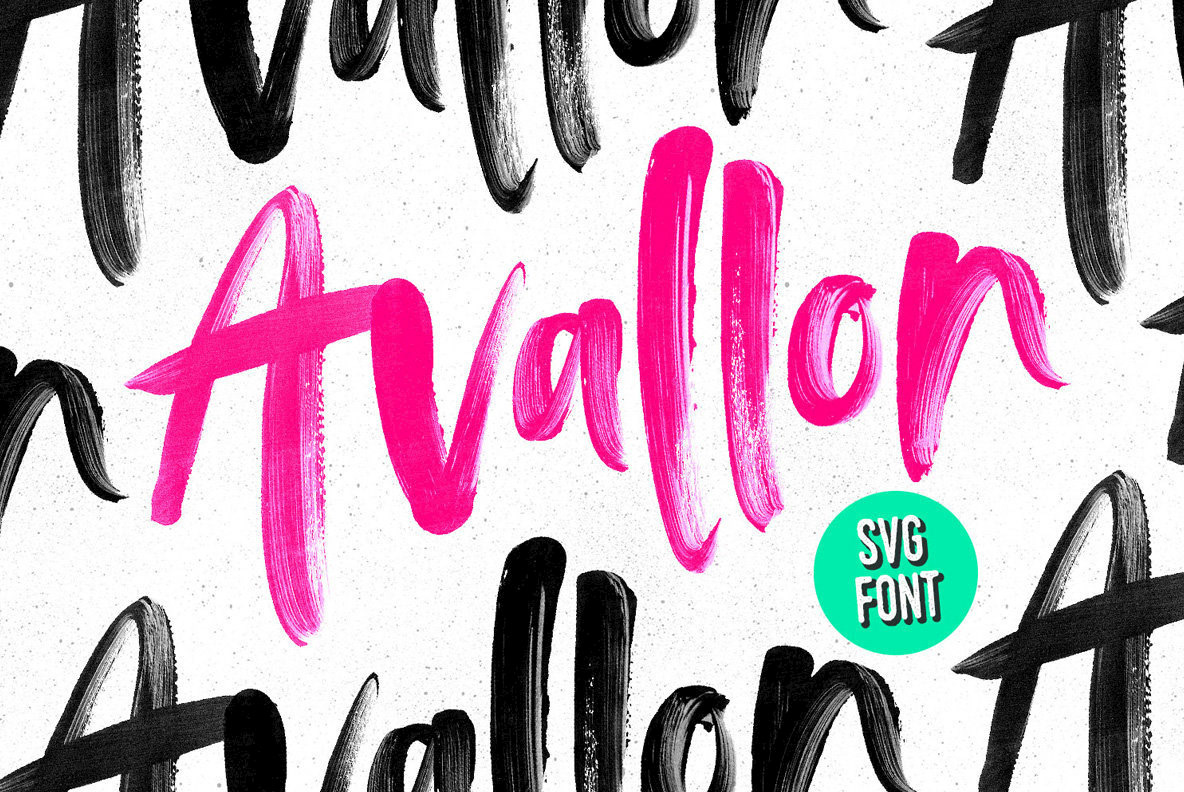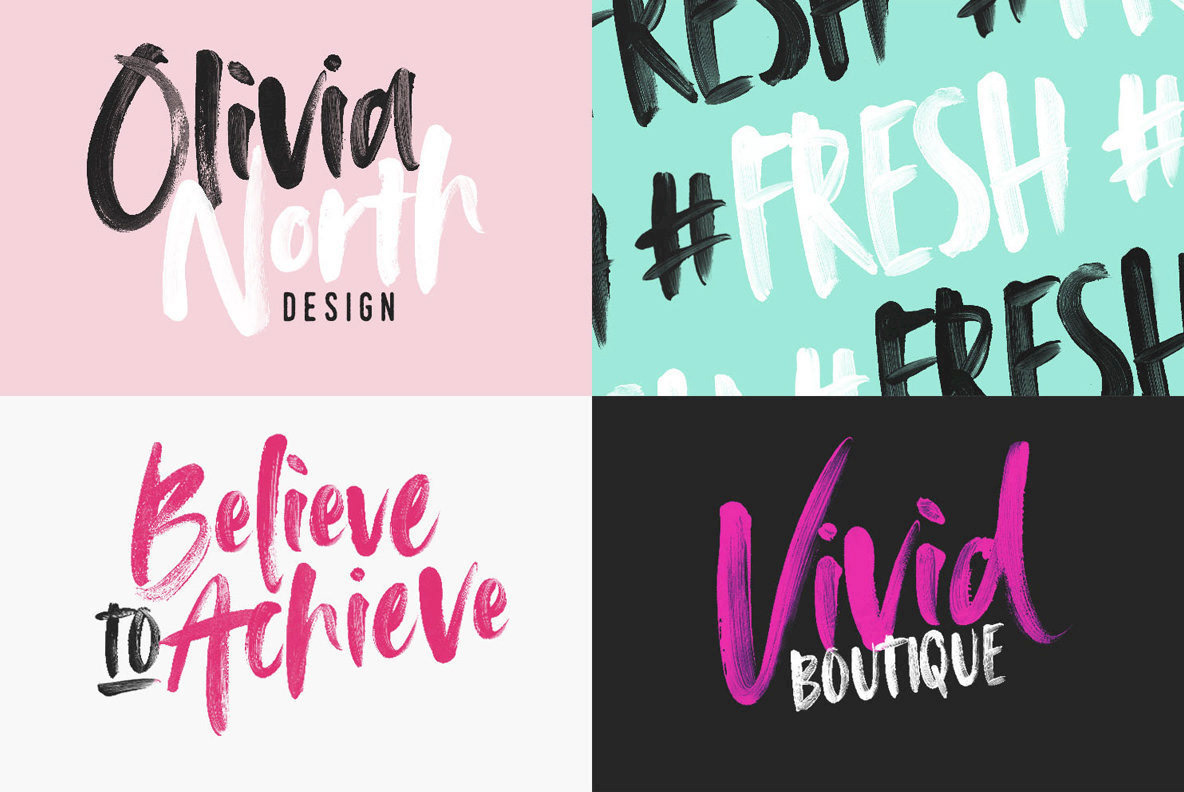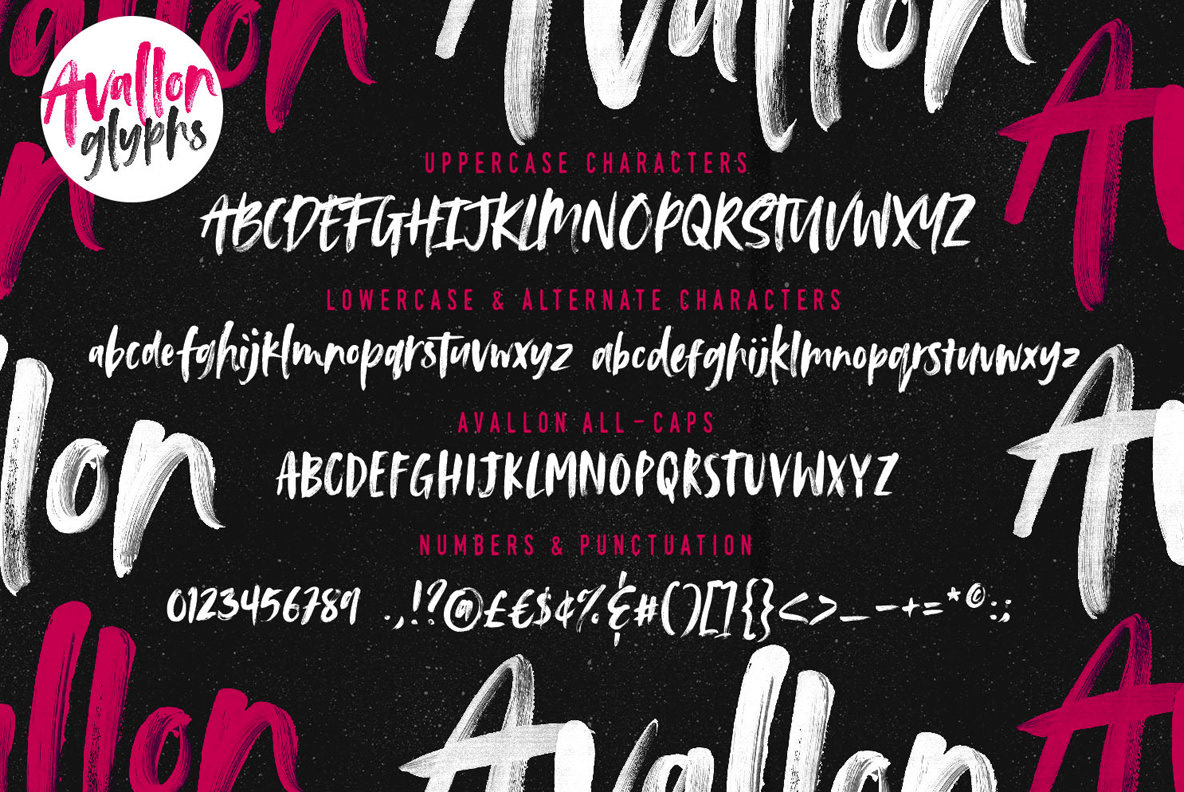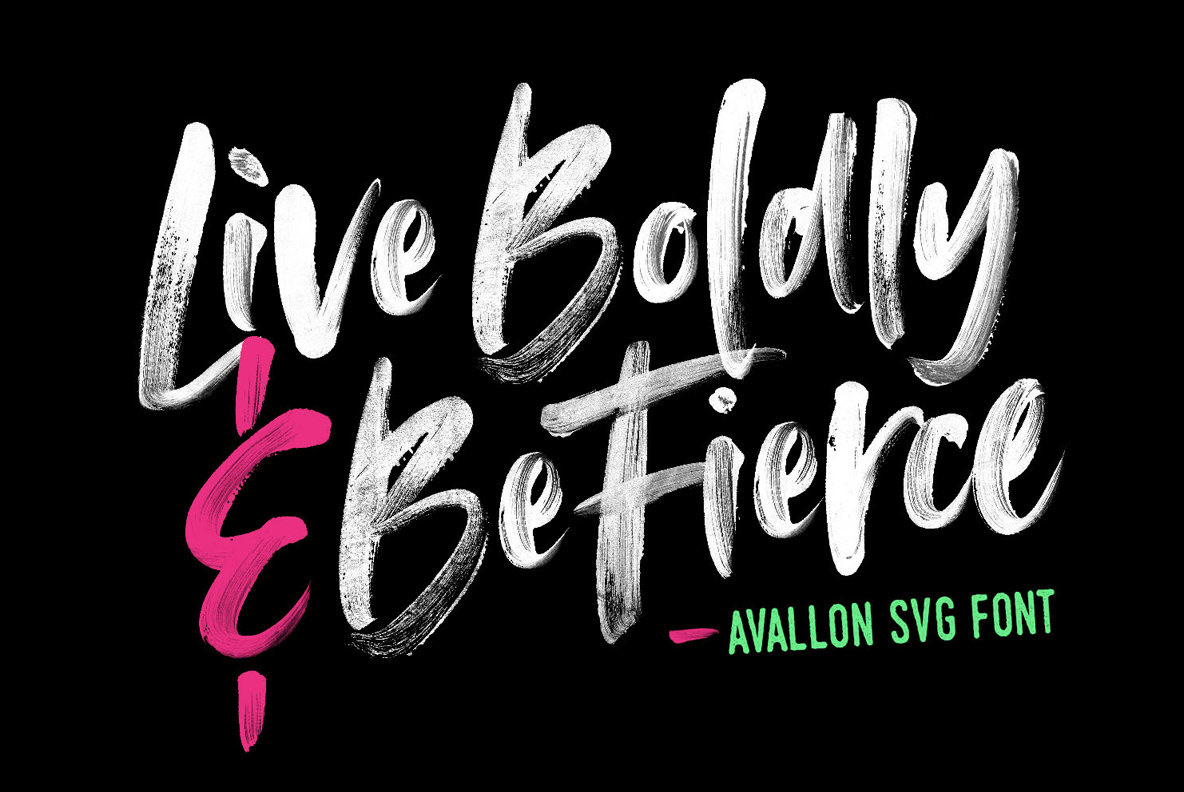
This new format is really exciting because it means we can start adding much more detail to the letters than previously possible. Avallon is my latest handpainted brush font, and my first which makes use of this new technology, by using actual brush stroke images with incredible definition. With this font you get an amazing paintbrush effect built in, as a transparent texture, with no extra work required. (I know, it's awesome).
1. Avallon SVG • A high definition SVG brush font, containing upper & lowercase characters with a drawn height of roughly 800 pixels (letter sizes vary).
2. Avallon Alt SVG • This is a second version of Avallon SVG, with a completely new set of lowercase characters. If you wanted to avoid letters looking the same each time to recreate a custom-made style, or try a different word shape, simply switch to this font for an additional layout option.
3. Avalon All Caps SVG • A brand new set of capital letters which work much better when using all-caps, and pairs perfectly with the regular version.